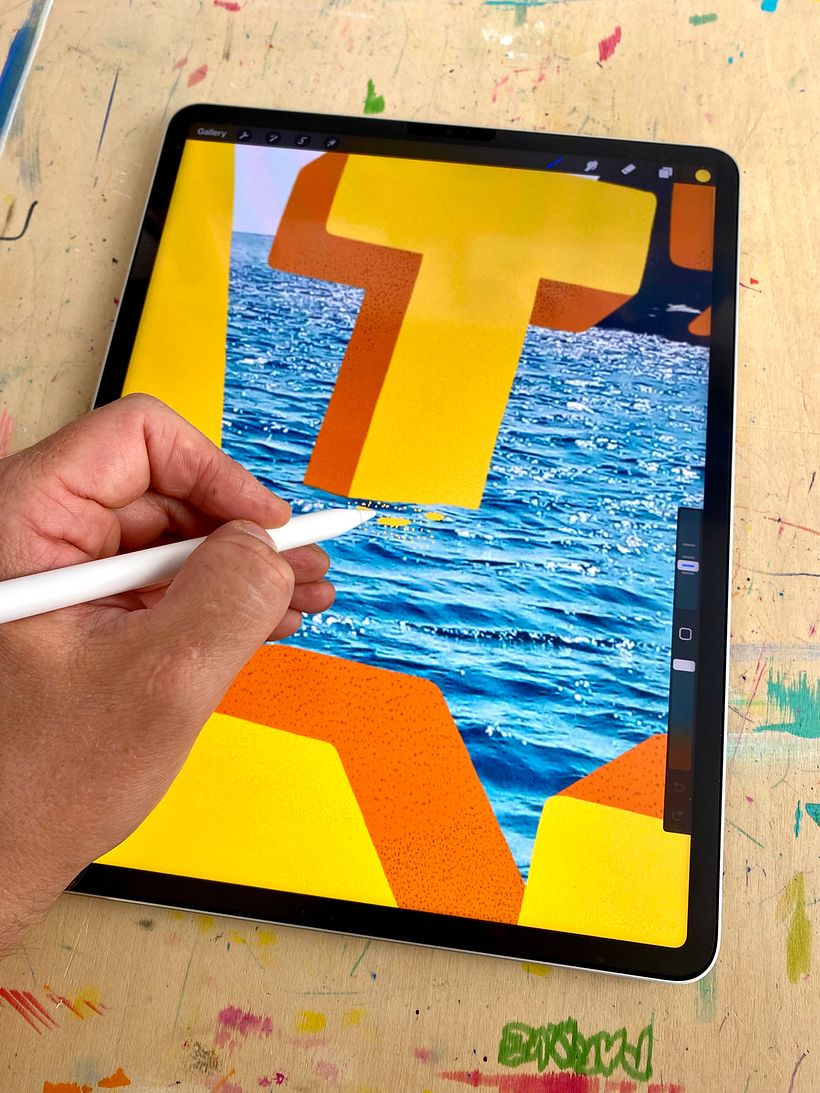
Typography on Photography
Introduction
Here are a few images from my latest typographic exploration; drawing words over found landscape photography.
I've been mostly using royal free stock images and picking out strange or beautiful landscapes - anything that catches my eye and makes me want to draw on. After downloading the photo, I add it to Procreate on my iPad and begin sketching out some ideas.
My aim is to show my hand drawn typography within a different environment, and integrate it somehow to create new works for my portfolio.
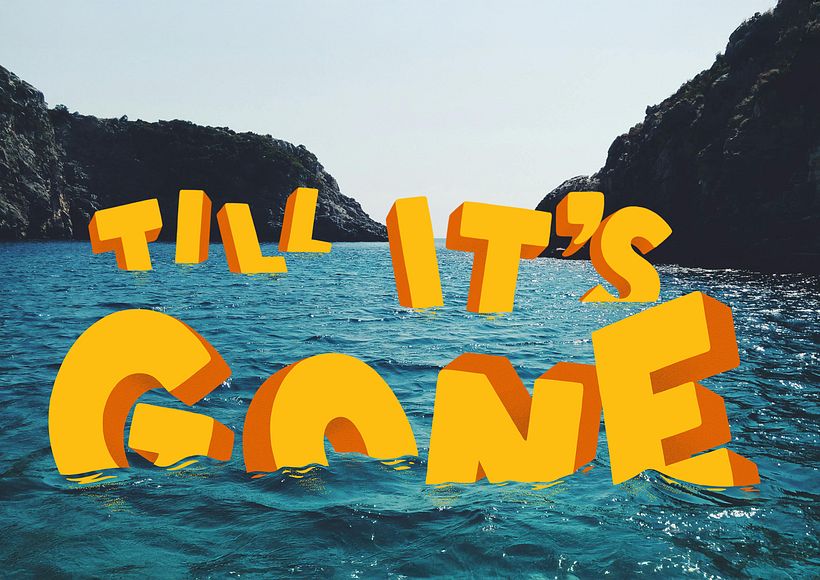
These photographs were downloaded for free from Pexels. I uploaded them to a new dartboard in ProCreate on iPad and start drawing. All image creation is done from here on in using there iPad, adjusting layer transparancies to help make my drawings appear within the environment.
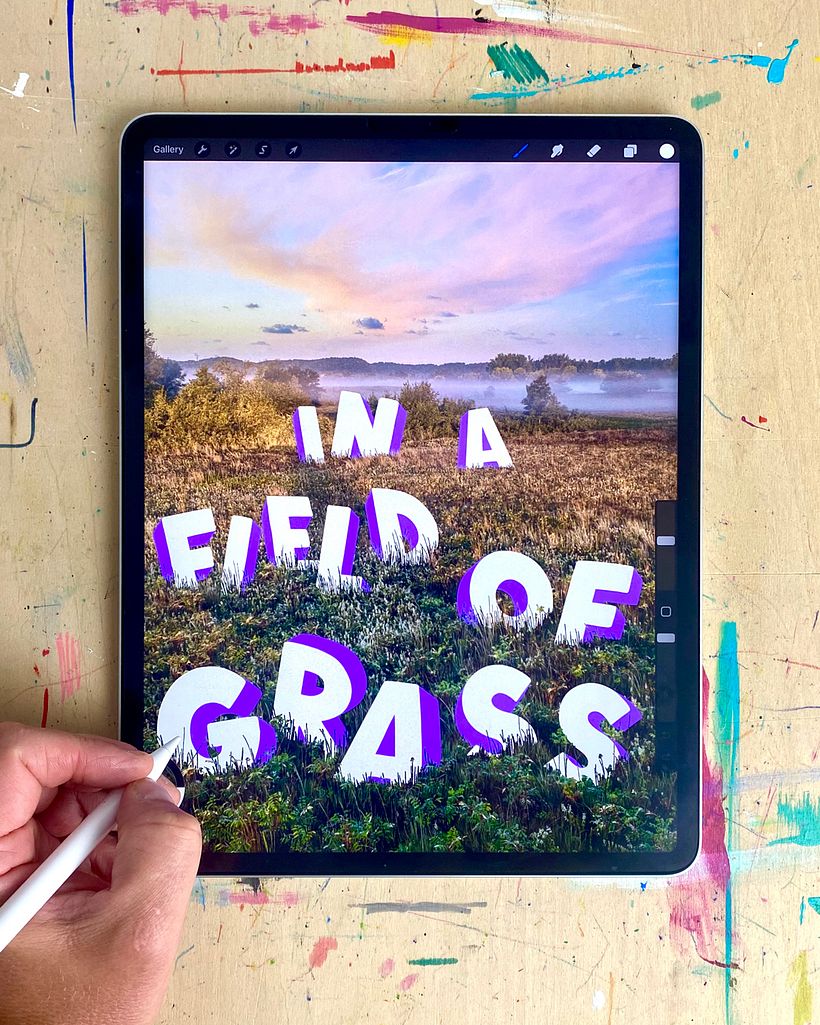
Real, but Not Too Real
I want my typography to remain looking hand drawn, this is my main priority. It's important to me to make the letters appear in the environment, but not too photo-realistic. This, for me, keeps the images looking original and interesting and ties in with the rest of my lettering-based portfolio.